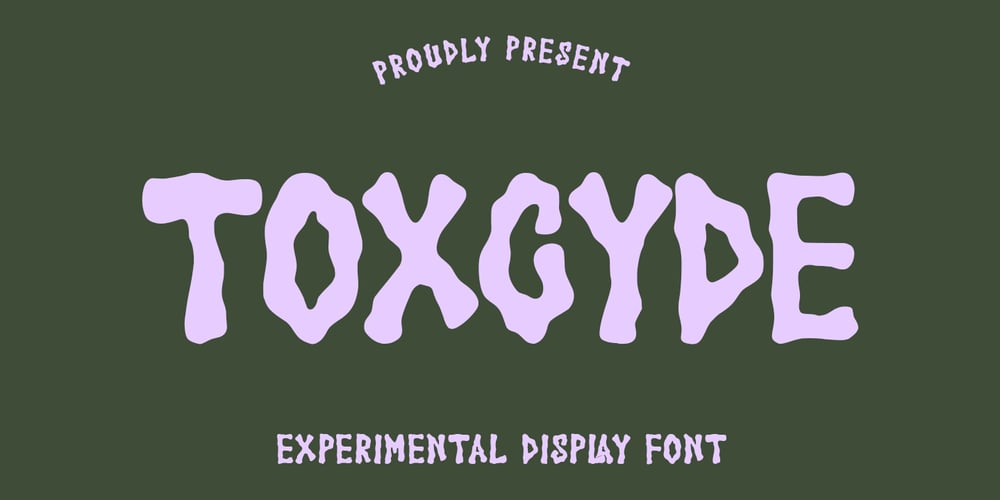
MC Toxcyde
MC Toxcyde font
MC Toxcyde Font Family was designed by Gilang Maulana and published by Maulana Creative. MC Toxcyde contains 1 styles and family package options. Toxcyde is an all caps experimental display font. Bold stroke, fun character with a bit of ligatures. To give you an extra creative work. Toxcyde font support multilingual more than 100+ language. This font is good for logo design, Social media, Movie Titles, Books Titles, a short text even a long text letter and good for your secondary text font with script or serif. Make a stunning work with Toxcyde font.